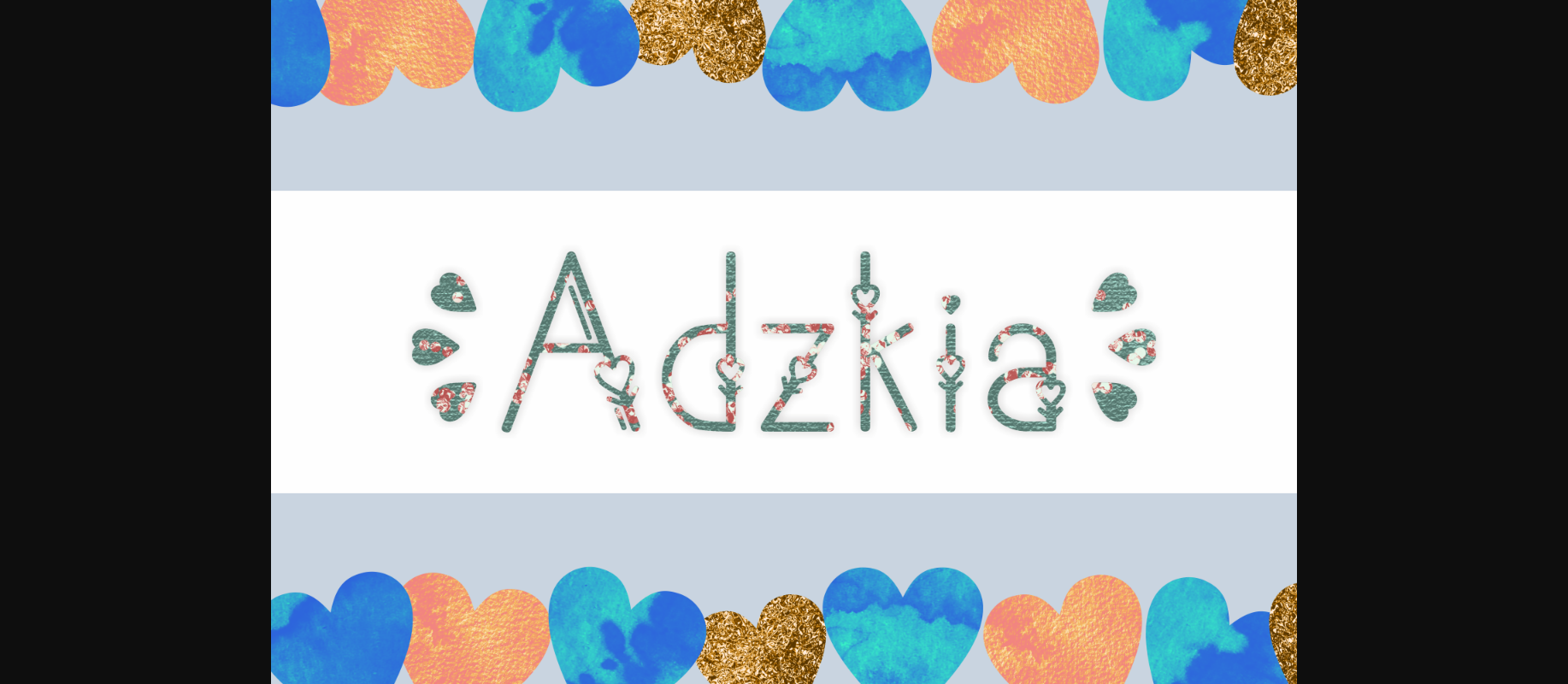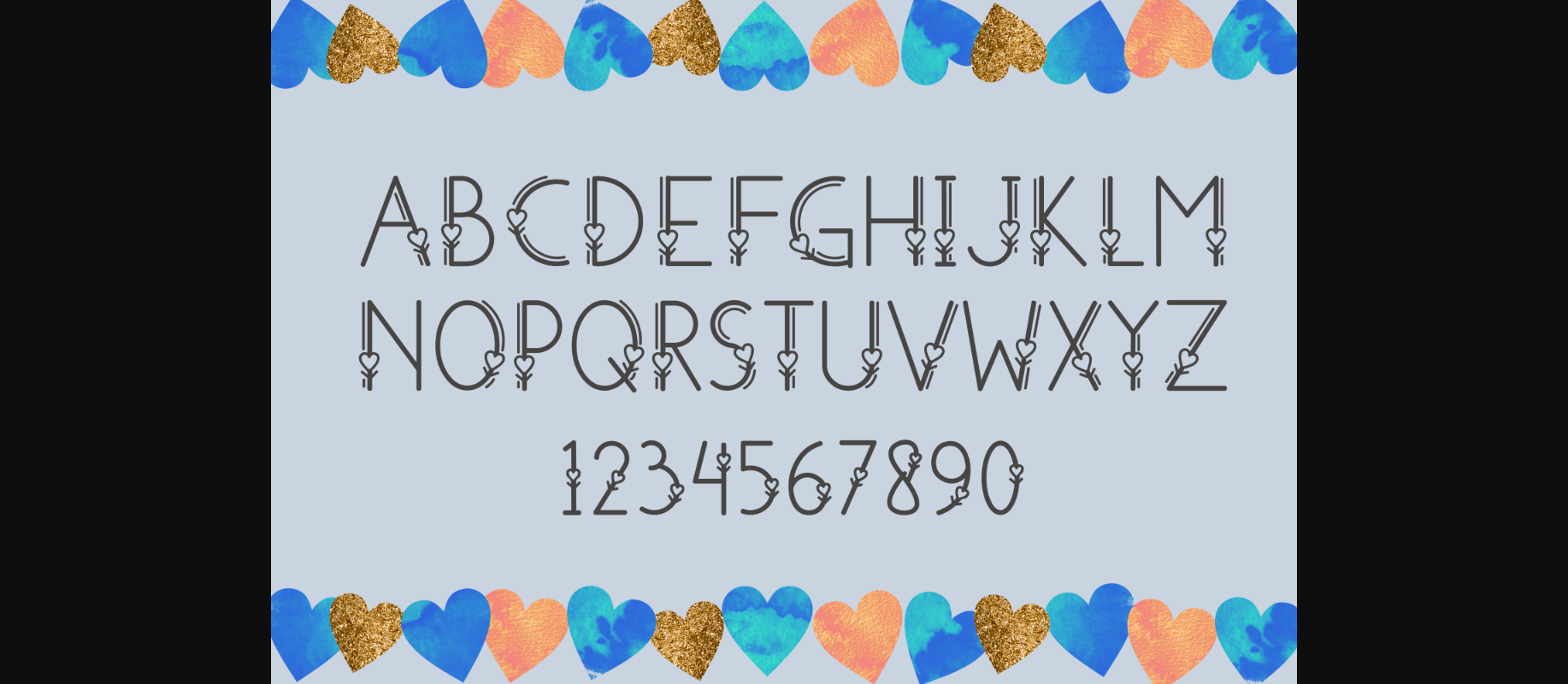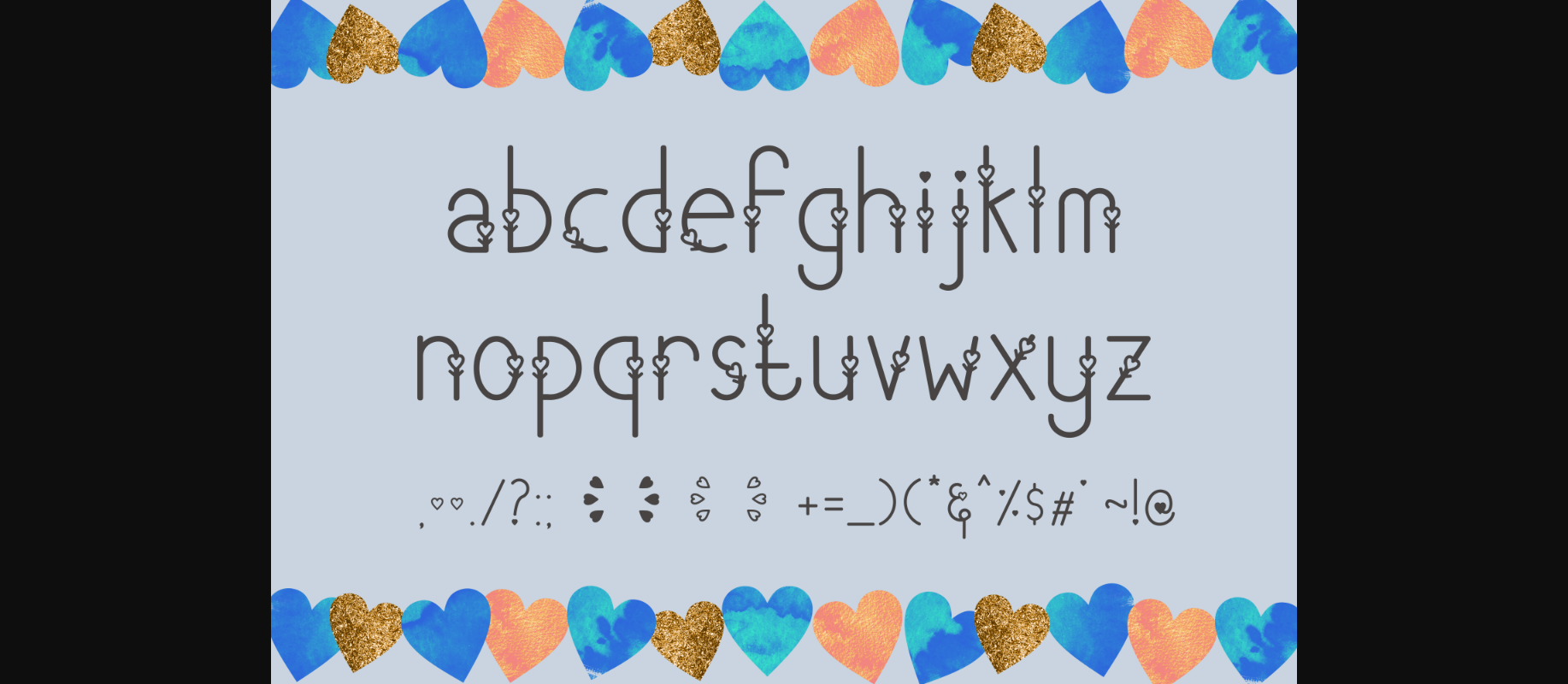
Adzkia is a fancy decorative font. It features romantic heart-themed characters that will add a cute touch to your projects. Use this amazing font for a wide range of crafty ideas, from letterheads and titles, to stationery.